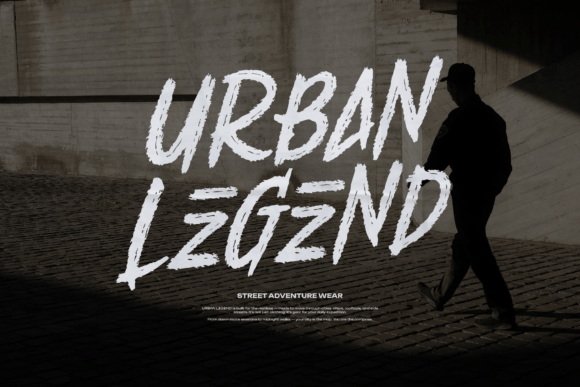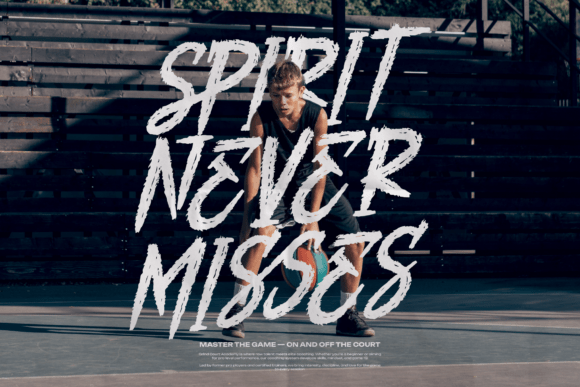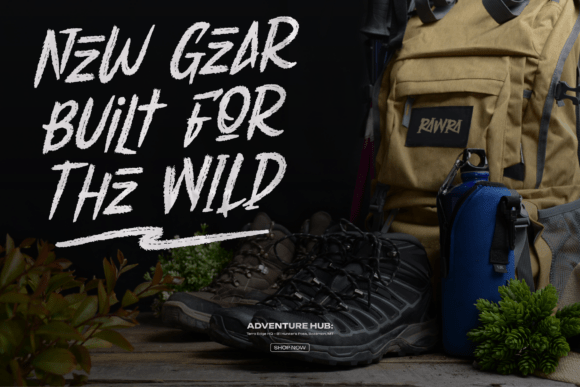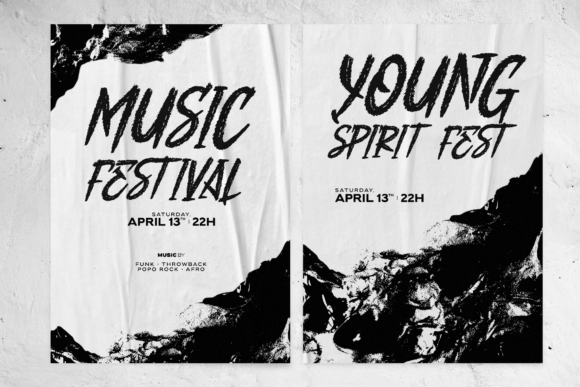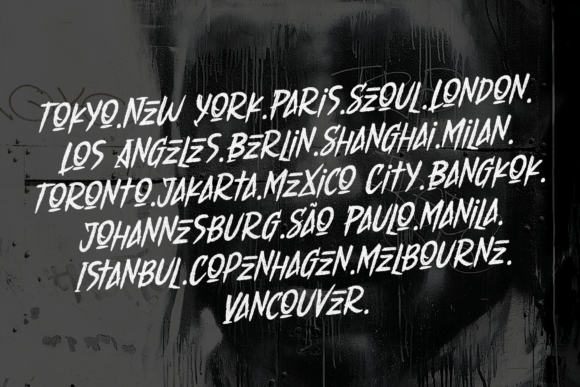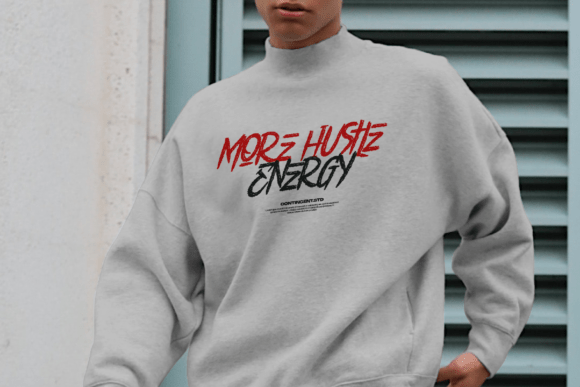
Introduction to Rawra Brush Font
You’ve got a creative project on your mind, and you’re on the hunt for a design resource that packs a punch. Maybe you’re crafting a music album cover, or designing a bold poster for an upcoming event. Whatever it is, you need a font that speaks to your audience and leaves a lasting impression.
That’s where Rawra Brush Font comes in – a high-quality, hand-drawn brush font that’s built to command attention. With its rough texture and expressive strokes, this font brings a rebellious, street-style aesthetic to your designs. Whether you’re looking to add some edgy flair to your branding or create a memorable merchandise design, Rawra Brush Font is the perfect choice. And the best part? It’s available for free download, complete with a transparent background, so you can focus on bringing your vision to life.
Key Features of Rawra Brush Font
- Unique Hand-Drawn Design: The Rawra Brush Font is a high-quality, hand-drawn design resource perfect for creative projects that require a personal touch.
- Customizable: The font’s unique characteristics make it an excellent choice for designers looking to add a personal touch to their creative projects.
Honest Review: Rawra Brush Font
As a designer, I’m always on the lookout for high-quality design resources to elevate my creative projects. Recently, I stumbled upon the Rawra Brush Font, and I’m excited to share my thoughts on this free download.
- ✨ Unique and elegant brush stroke design that adds a personal touch to my projects.
- ✨ High quality and crisp rendering, making it perfect for digital use.
- ✨ Transparent background, which allows for seamless integration with other design elements.
- ⚠️ Limited character set, which may not be suitable for long-form text or extensive use.
- ⚠️ Some users may find the font too stylized or decorative, which may not be suitable for all design projects.
Overall, I’m impressed with the Rawra Brush Font, and I think it’s a great addition to any designer’s toolkit. While it may have some limitations, its unique design and high quality make it a valuable resource for creative projects. With a little creativity, I’m confident that this font can be used to create stunning designs.
How to Use Rawra Brush Font
The Rawra Brush Font is a high-quality design resource perfect for creative projects. With its unique, hand-drawn style, it adds a personal touch to any design. This font is available for free download with a transparent background, making it easy to incorporate into your design.
Tips for Getting the Most Out of Rawra Brush Font
To get the most out of Rawra Brush Font, experiment with different font sizes, colors, and combinations to create unique and visually appealing designs. You can also use the font in conjunction with other design elements to add depth and interest to your design.
The Rawra Brush Font is perfect for a variety of creative projects, including invitations, social media graphics, and marketing materials. Its unique, hand-drawn style makes it ideal for designs that require a personal touch.